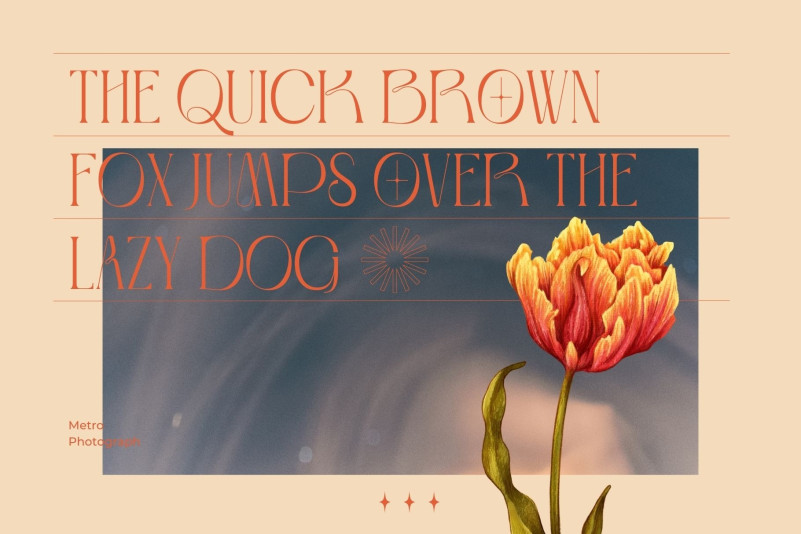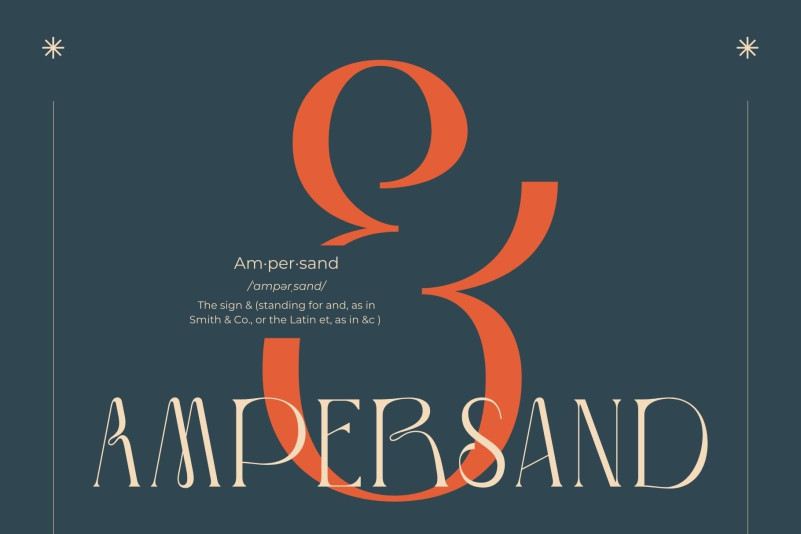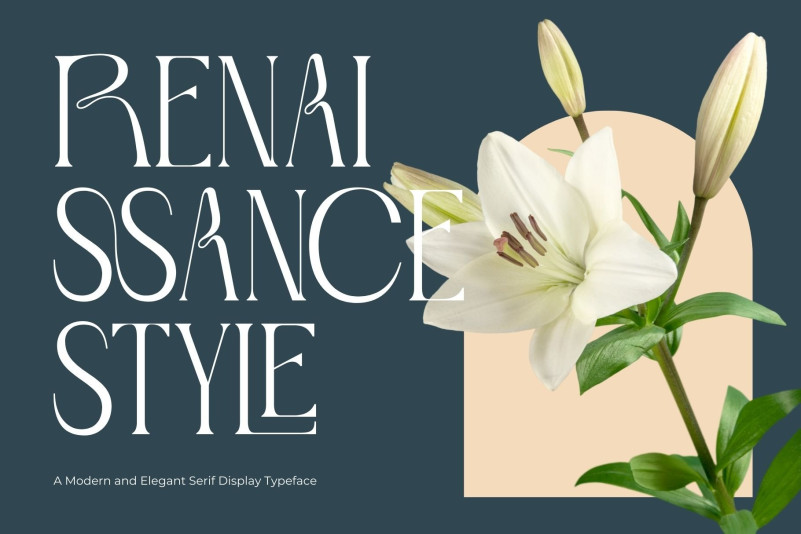
Metro Photograph Font
Metro Photograph Serif Font is a skinny bold serif font with alternate characters it’s make perfect to create Elegant Design, Modern, Vintage, Retro and more. It’s perfect for logos, branding, title, social media posts, advertisements, product packaging, product designs, label, photography, watermark, special event, magazine, web designs, etc.